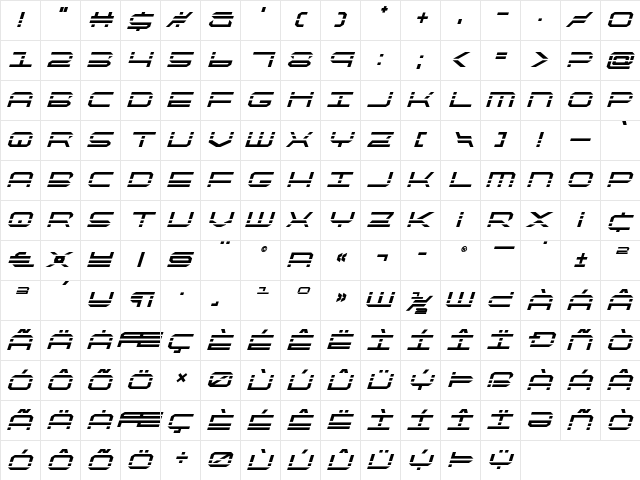
QuickQuick Bold Italic Bold Italic
Design Context for QuickQuick Bold Italic Typeface
QuickQuick Bold Italic is a composed and adaptable typeface that performs quietly and consistently across a wide range of design contexts. The dynamic lean of this cut emphasises speed and emphasis in any layout. Its bold stroke weight gives it real presence on the page.
Pro Tip: Use QuickQuick Bold Italic for emphasis, pull quotes, and subheadings where its slanted energy can add rhythm to the layout.